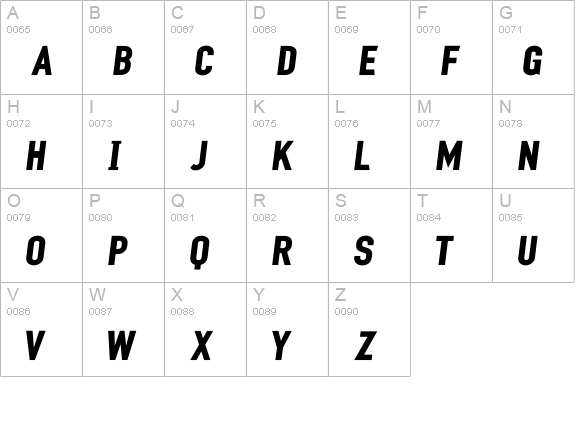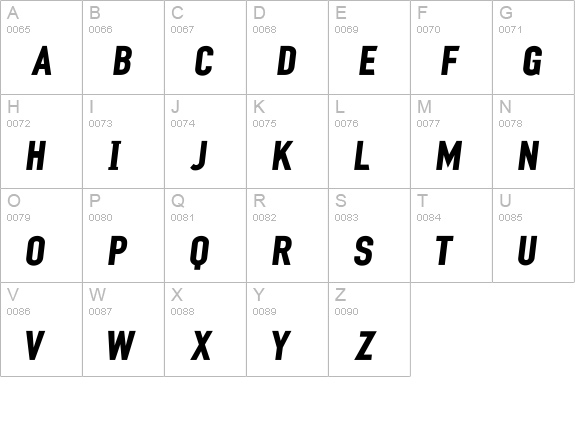
MechanicGothic-Italic is a distinctive, italic variant in the MechanicGothic typeface family \xE2\x80\x94 well suited to design and typography projects.
MechanicGothic-Italic font is a striking and modern typeface that exudes a sense of industrial grit and mechanical precision. The slanted, italicized design adds a touch of edgy sophistication to any project, making it perfect for branding, posters, and other design applications where a bold statement is needed. This unique font is available for free download exclusively at FontsMarket.com, allowing designers and creatives to easily access and incorporate its distinct style into their work. With its sleek lines and futuristic vibe, MechanicGothic-Italic font is sure to make a lasting impression and elevate any design project to the next level.